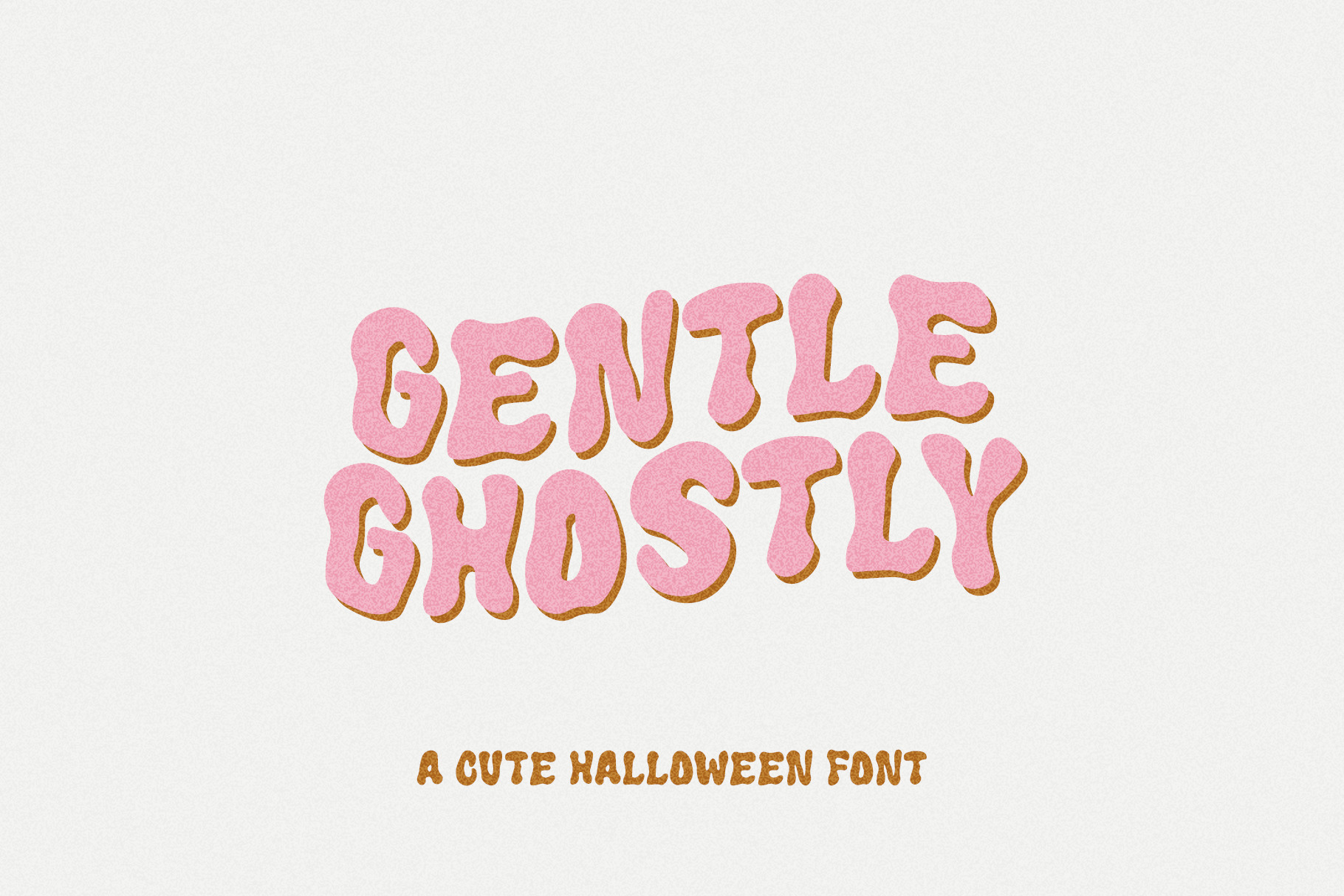
Gentle Ghostly halloween font
Gentle Ghostly will be perfect for halloween lettering, beautiful frame for your home, book covers, greeting cards, logos, marketing, magazines or anything that requires cute handwritten lettering :)